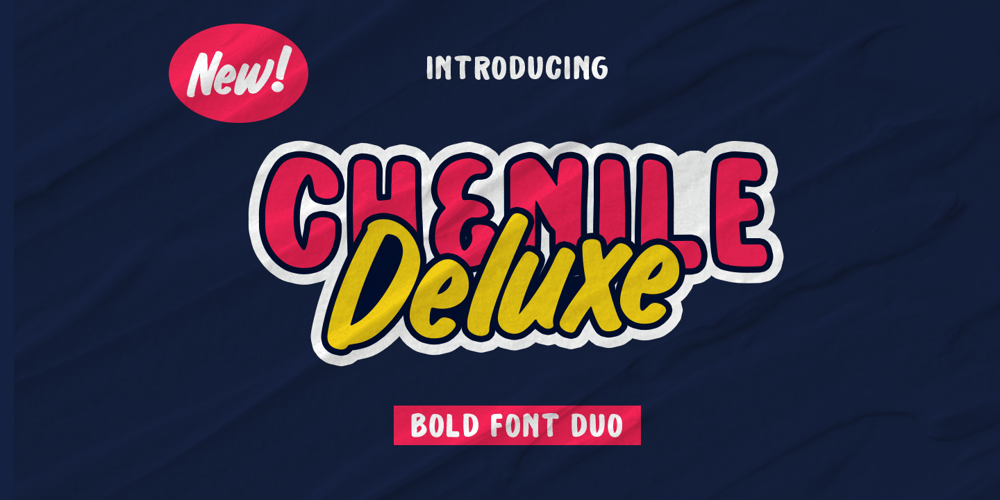
Chenile Deluxe Font Family was designed by Hendry Juanda and published by Letterhend. Chenile Deluxe contains 2 styles and family package options. Introducing, Chenile Deluxe bold font duo. Chenile Deluxe is a handwritten pair of bold font that designed to complete each other. this font is perfect for branding, packaging, logotype, quotes, headline, etc.Features : uppercase & lowercase numbers and punctuation multilingual alternates and ligatures swash PUA encoded We highly recommend using a program that supports OpenType features and Glyphs panels like many of Adobe apps and Corel Draw, so you can see and access all Glyph variations.